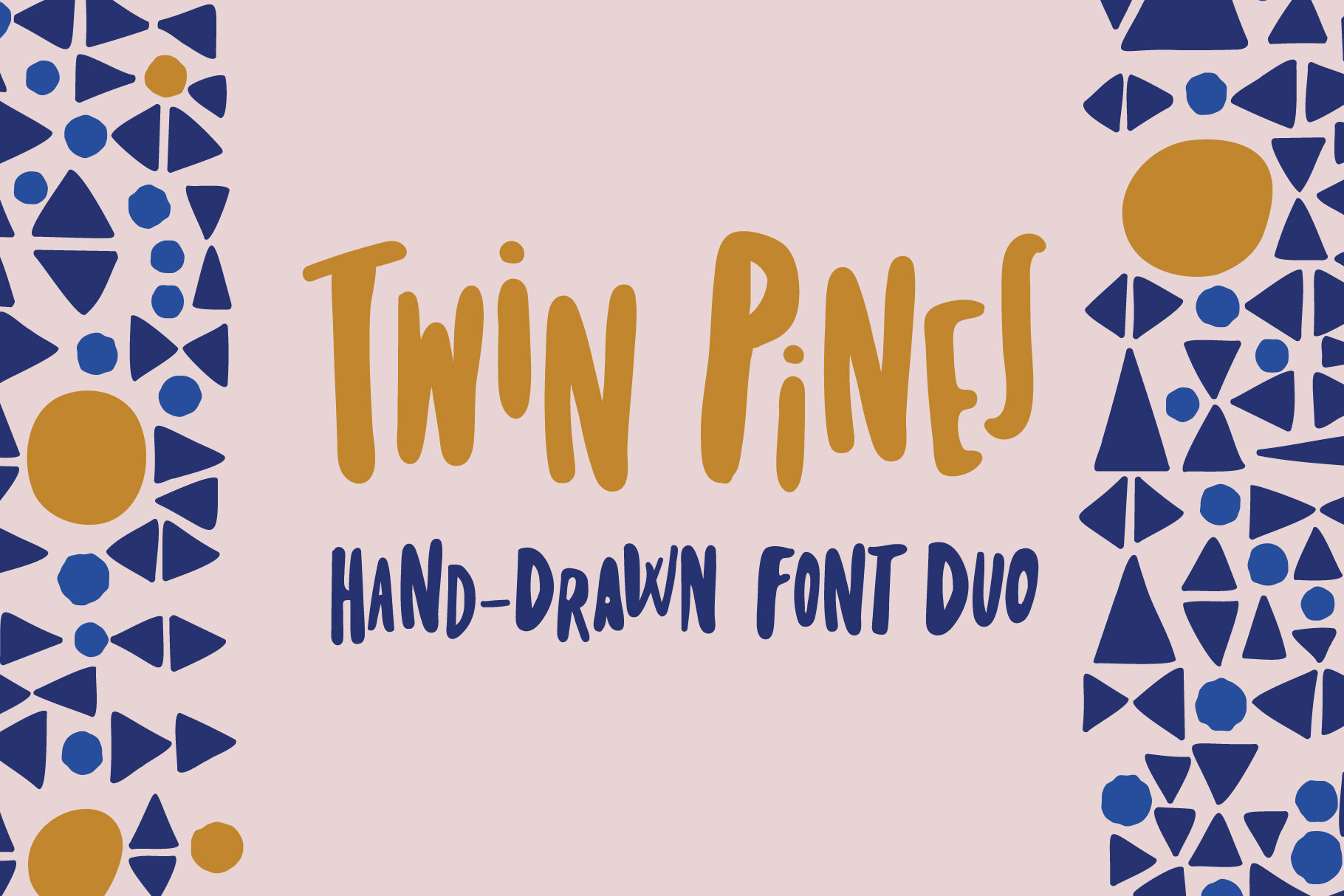
Twin Pines | Font Duo
▼ Twin Pines is playful, quirky sans serif font duo with a Regular and an Alternative full case alphabet. By changing the lower- and uppercase letters you can easily achieve a unique handwritten, marker style font.
Perfect for poster or t-shirt design, magazines, websites, logos, boho wedding invitations and much more! Vary the lower- and uppercase letters to achieve a new, unique design every time you use it!
✔ Twin Pines Regular - full set of handwritten uppercase & lowercase alternates (English alphabet)
✔ Twin Pines Alt - full set of handwritten uppercase & lowercase alternates (English alphabet)